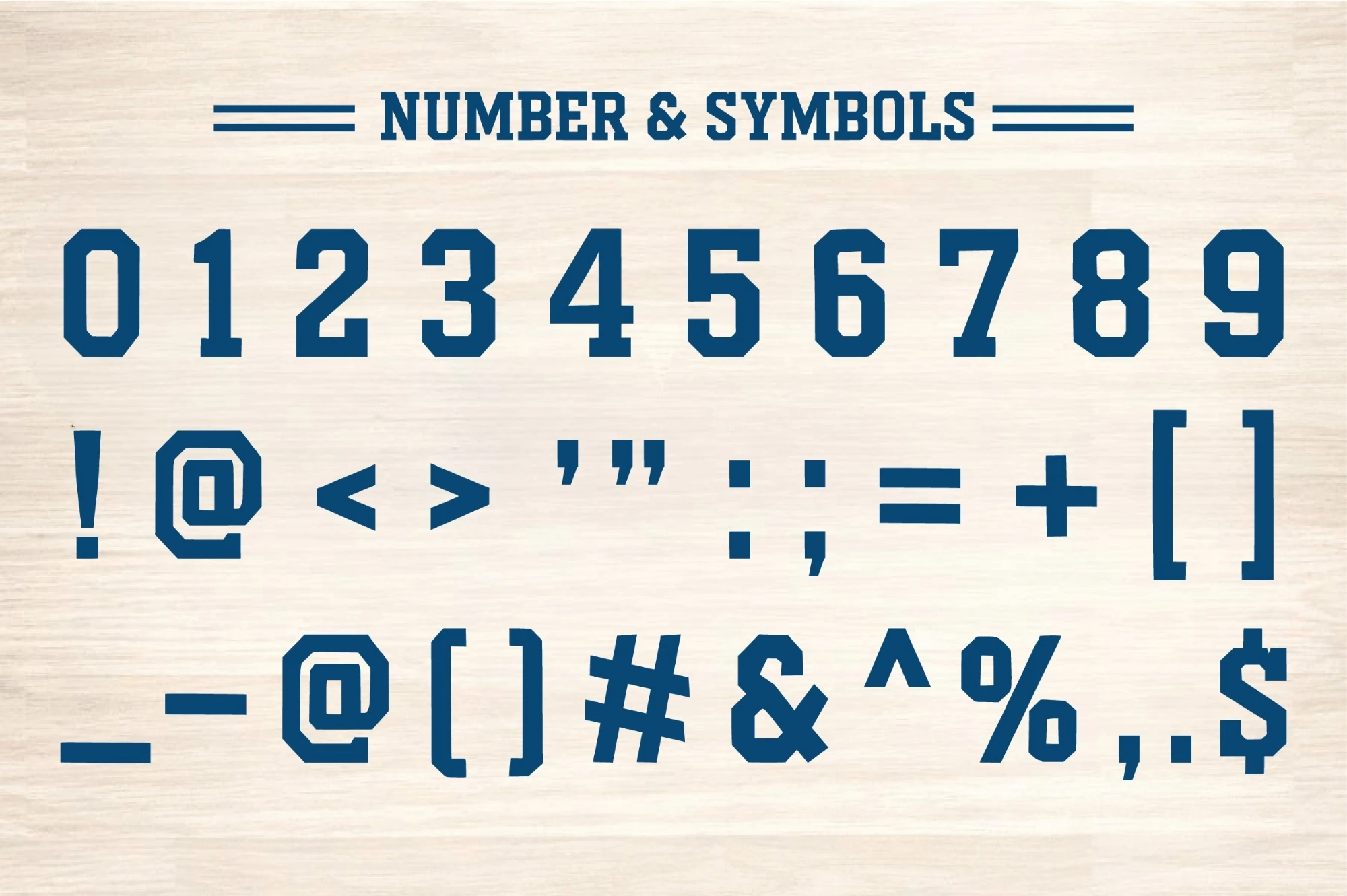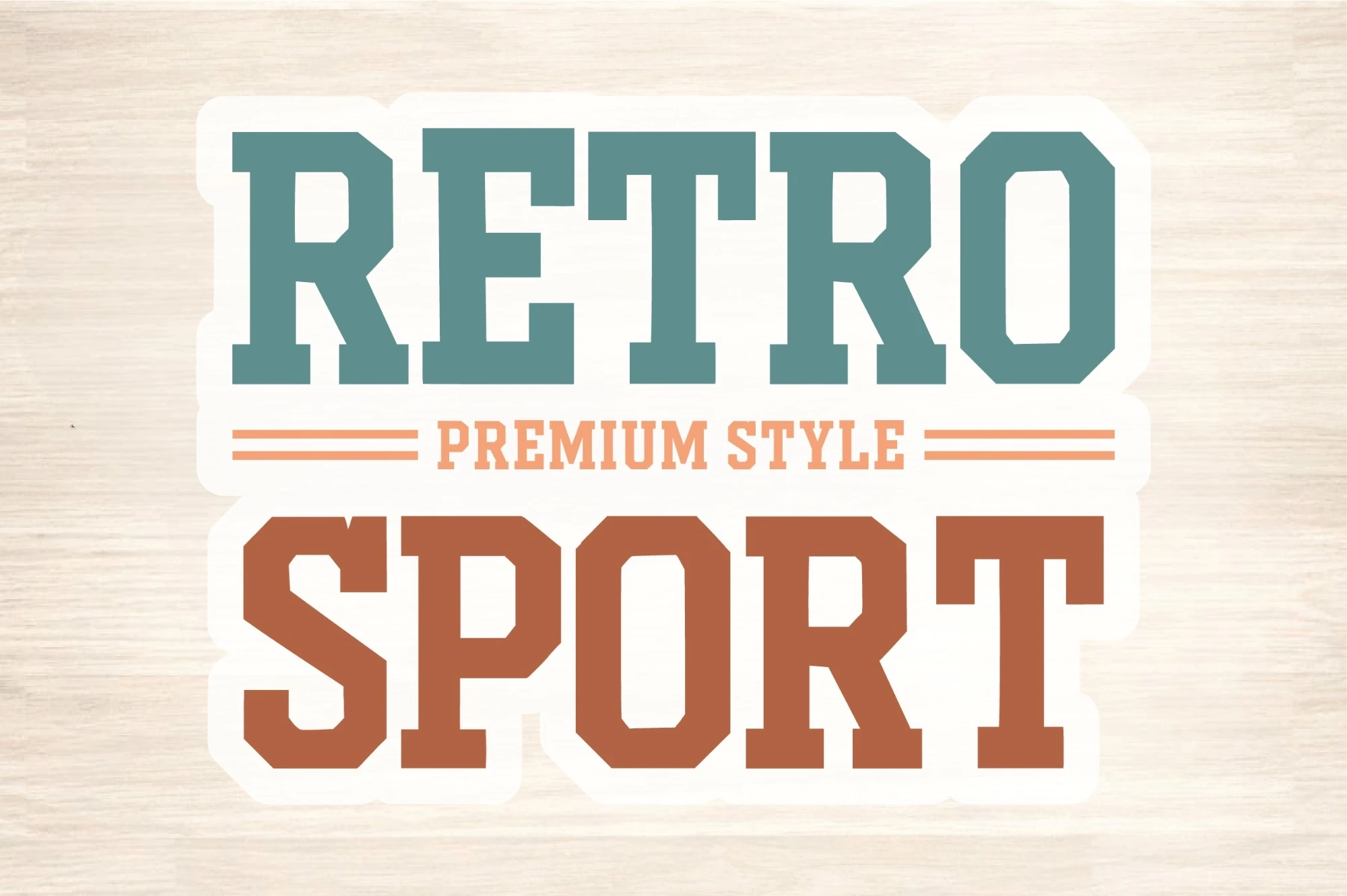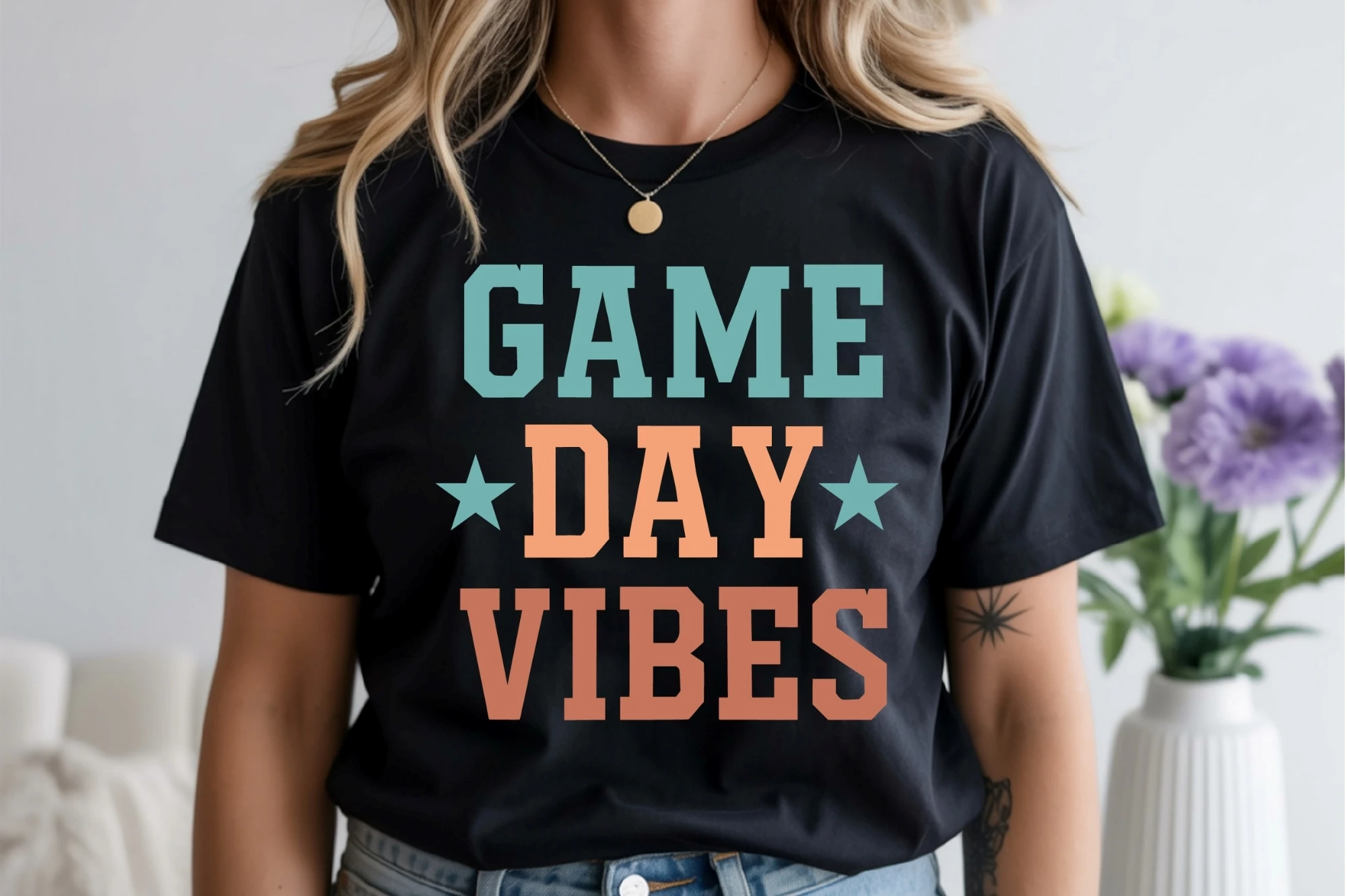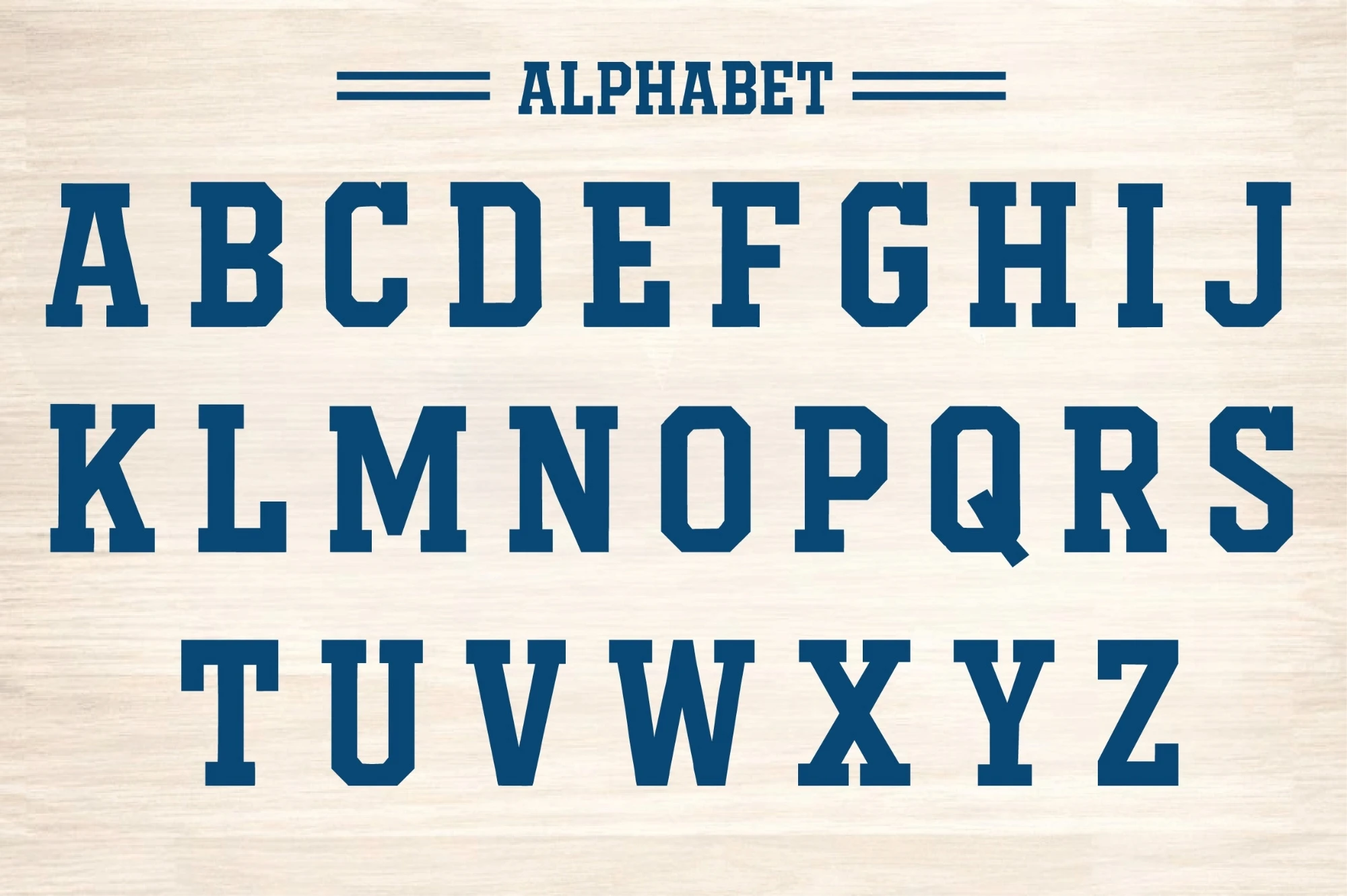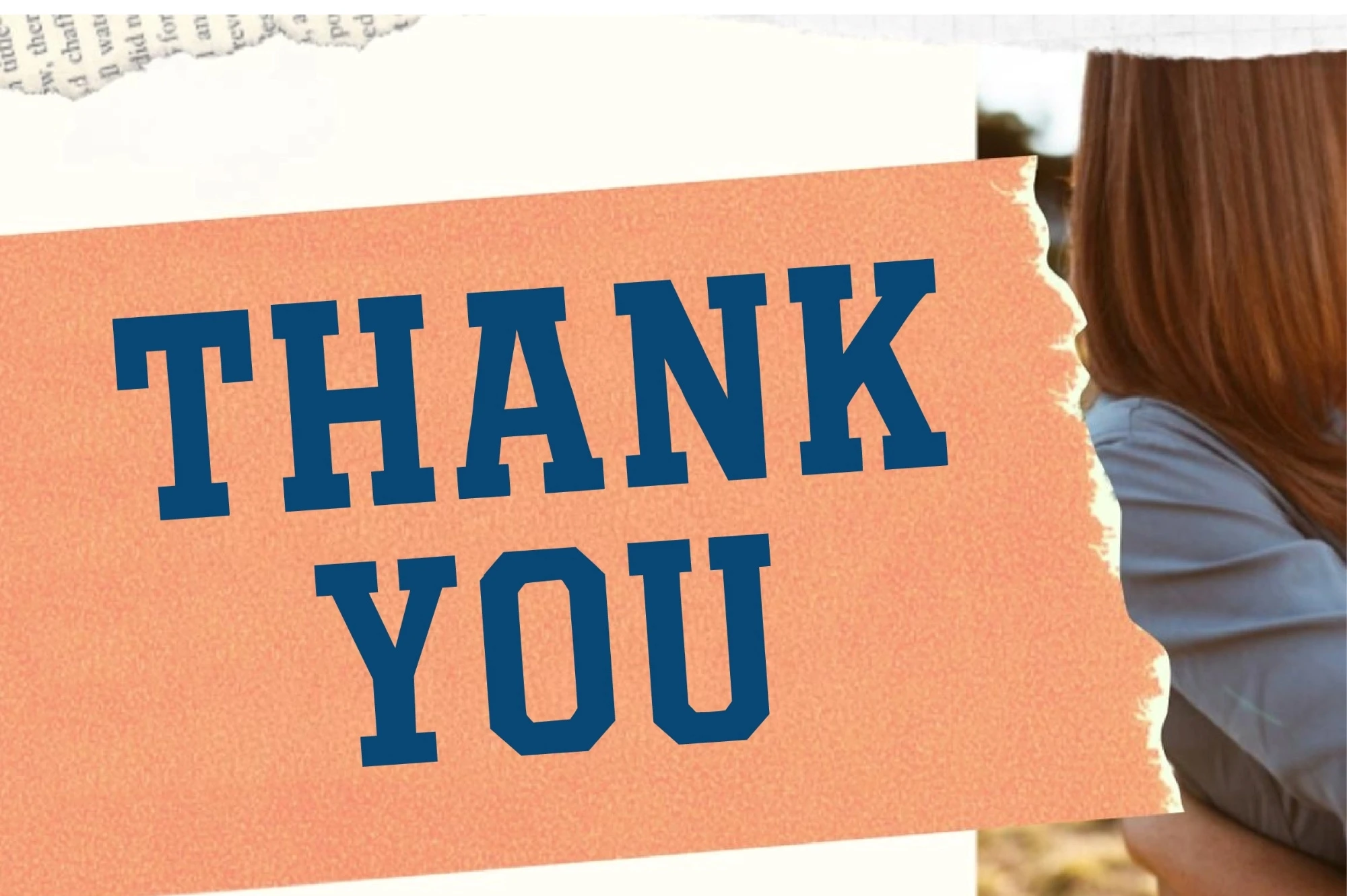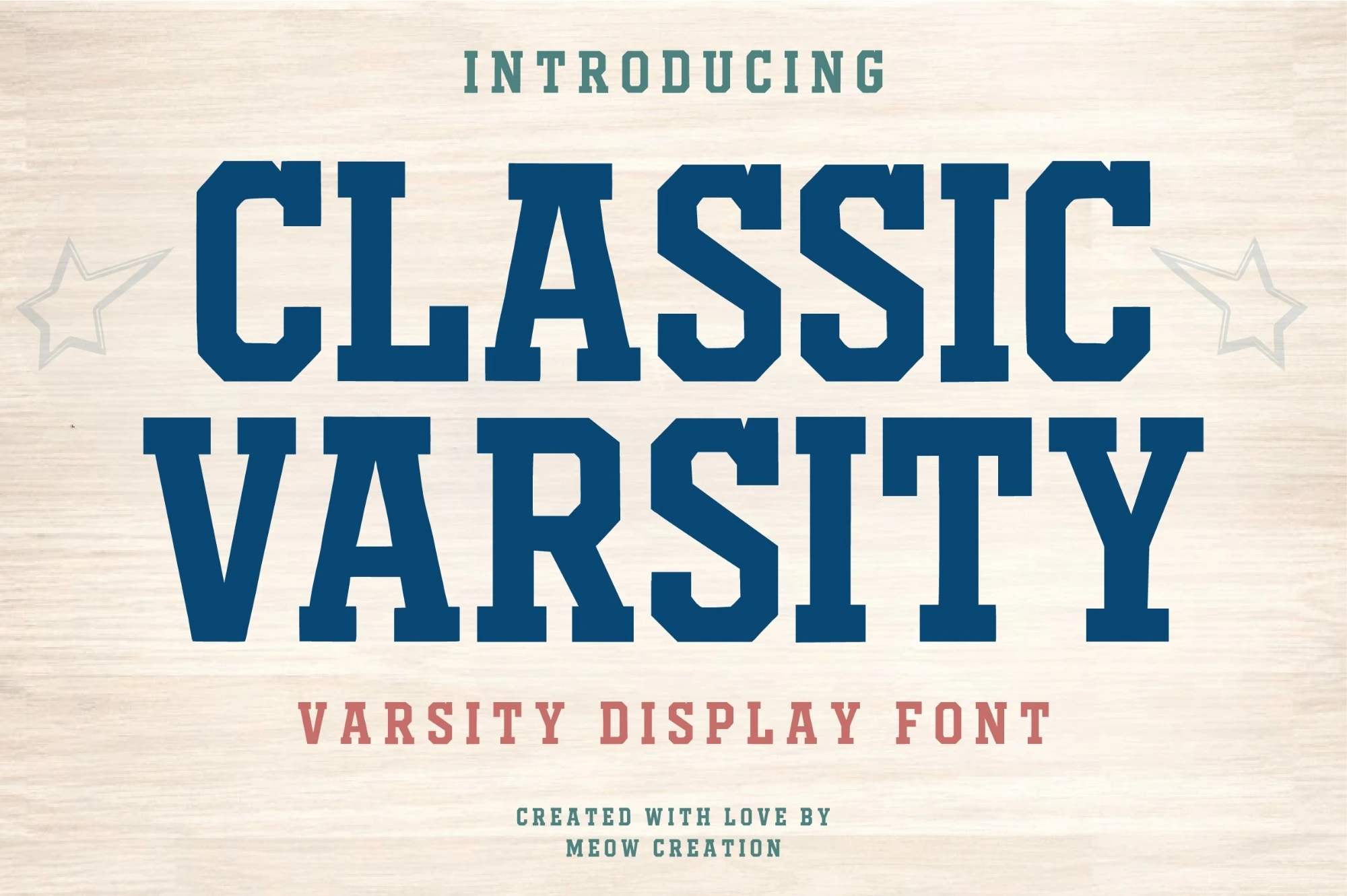
Classic Varsity is a bold, athletic-style font inspired by vintage college lettering and sports uniforms. Its strong slab serifs and clean outlines bring a powerful, confident look that perfectly fits any athletic or academic design.
This font captures the classic energy of varsity teams, championship banners, and school pride. Ideal for t-shirts, logos, posters, and team merchandise, it gives your projects a bold and professional feel.
Whether youre designing for a sports brand or creating a retro collegiate look, Classic Varsity adds authenticity and strength to every project.
This font captures the classic energy of varsity teams, championship banners, and school pride. Ideal for t-shirts, logos, posters, and team merchandise, it gives your projects a bold and professional feel.
Whether youre designing for a sports brand or creating a retro collegiate look, Classic Varsity adds authenticity and strength to every project.